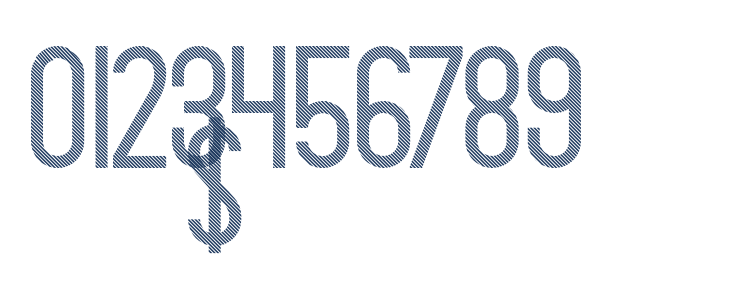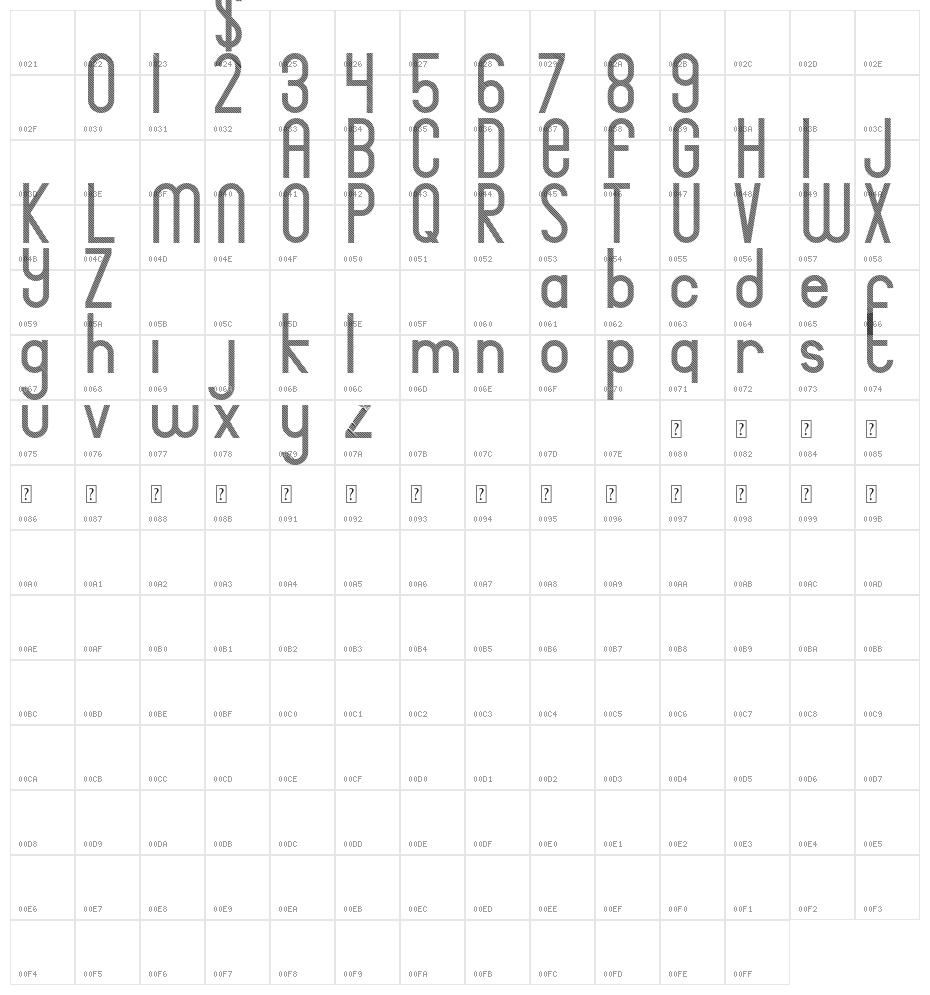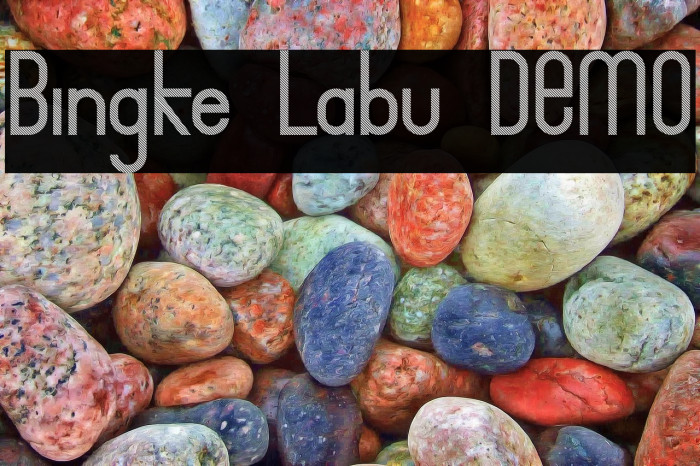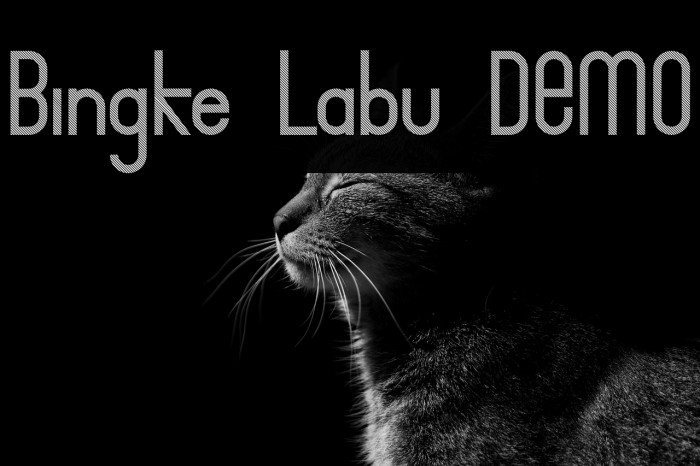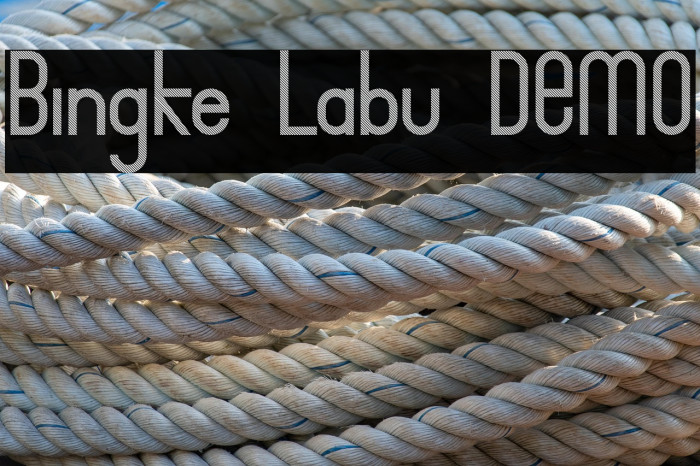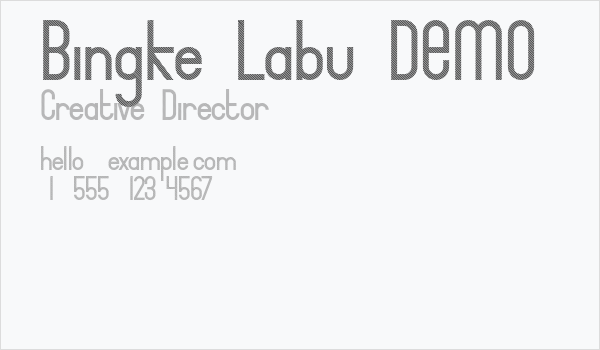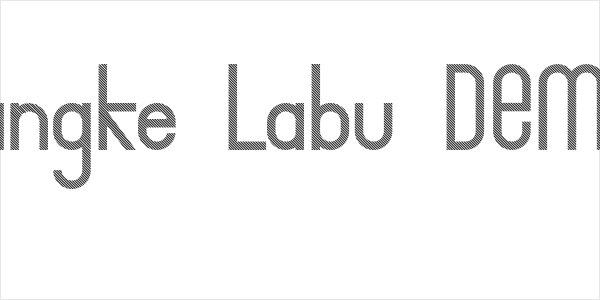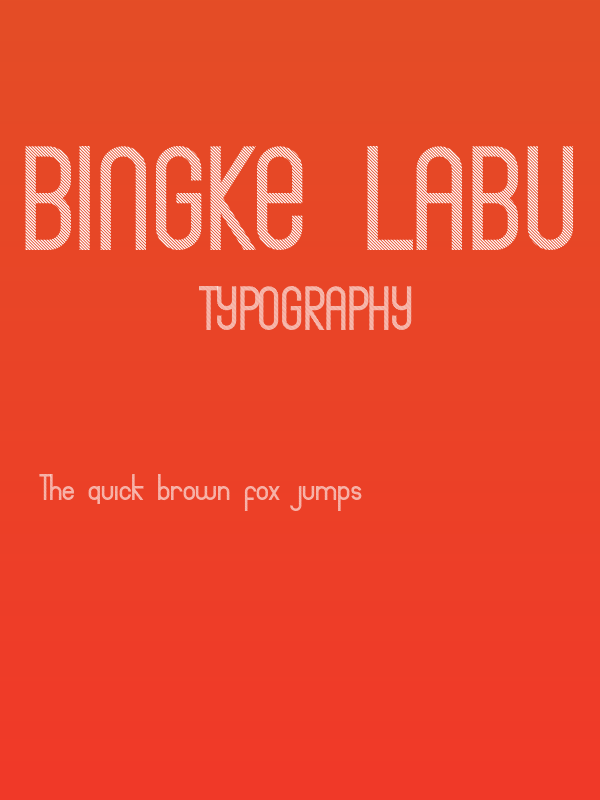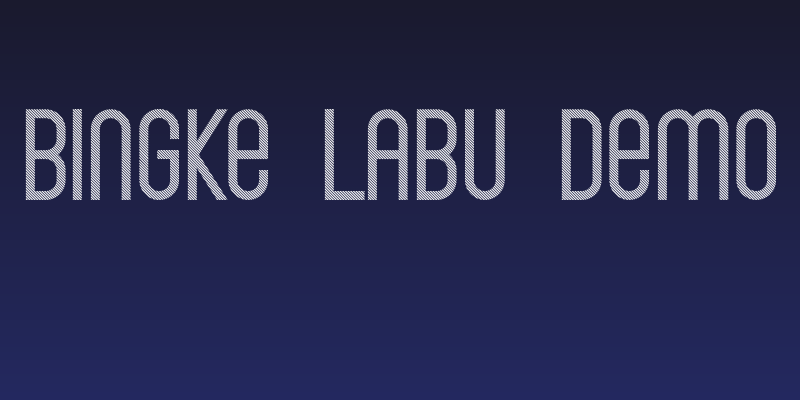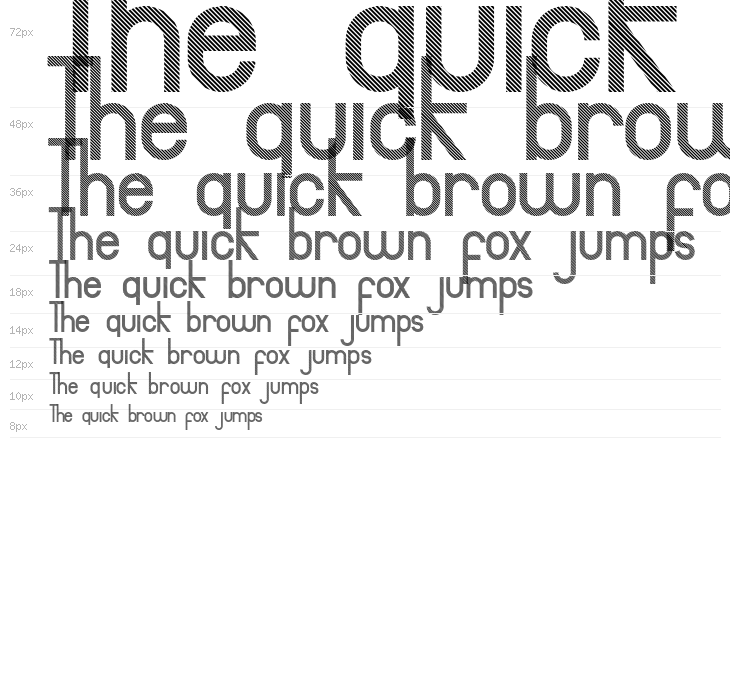
Bingke Labu DEMO Font
Bingke Labu DEMO Description
This font features a unique, decorative style with a diagonal line pattern filling each character, giving it a textured appearance. The characters are tall and narrow, with a consistent stroke width that maintains a uniform look across both uppercase and lowercase letters. The numerals and special characters follow the same design principles, ensuring cohesion throughout the font. The overall aesthetic is modern and eye-catching, making it suitable for projects that require a distinctive and bold visual impact.
| Proposed Projects | Ideal for branding, posters, and headlines where a striking and unique font is needed. |